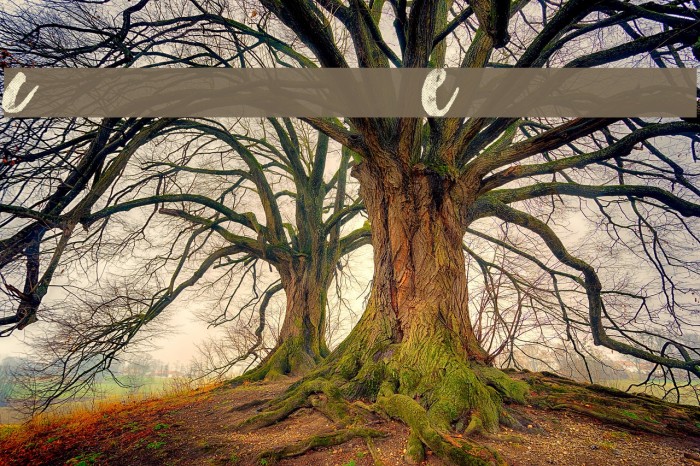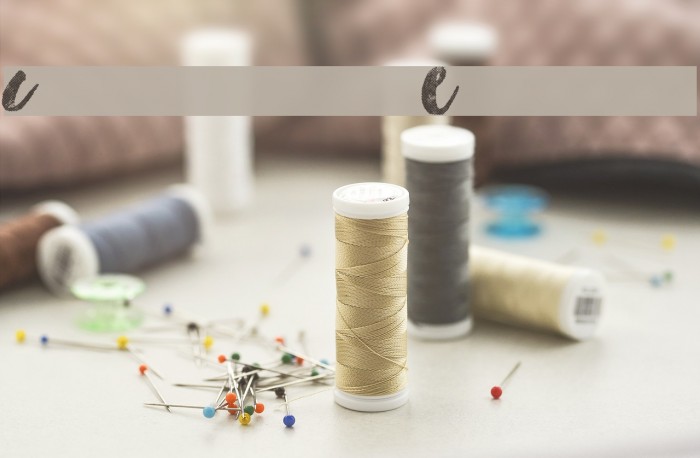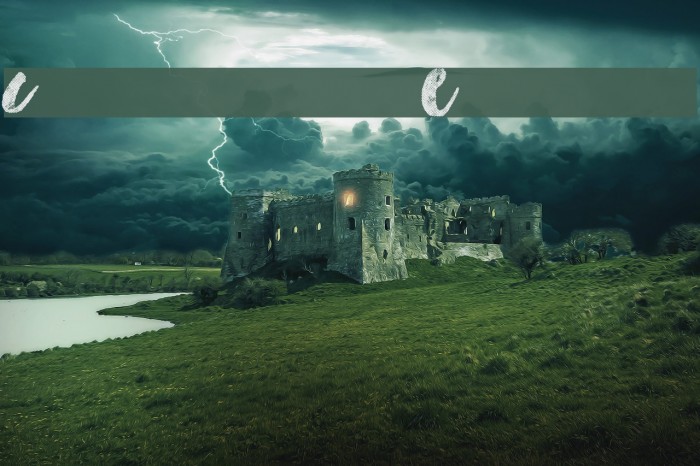
Chasing Embers Font
This font exudes a bold and artistic flair, characterized by its brush-like strokes and textured appearance. The letters are crafted with a sense of fluidity and movement, giving it a dynamic and lively feel. The uppercase and lowercase letters maintain a consistent style, with rounded edges and varying stroke widths that add depth and interest. The font's organic and handcrafted look makes it stand out, perfect for projects that require a personal touch. Its unique style is both modern and expressive, making it suitable for creative and artistic applications.
A bold, brush-style font with textured, dynamic strokes.
- Proposed Projects: Ideal for branding, artistic posters, social media graphics, and creative invitations.
- Use Case: Logos, Headlines, Artistic projects